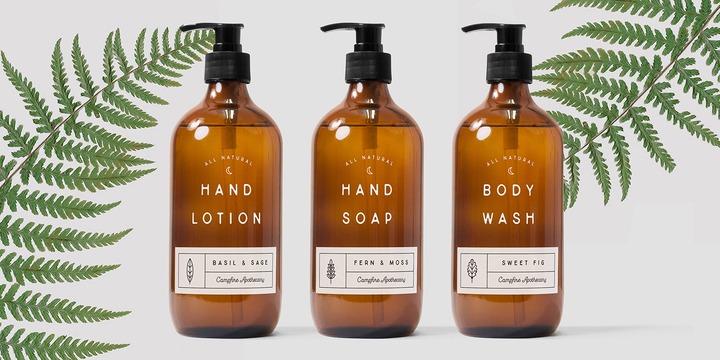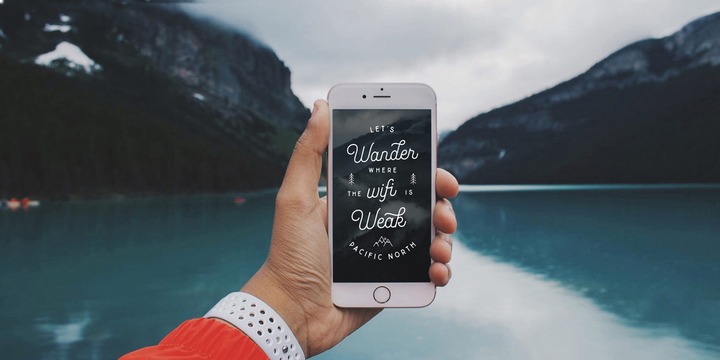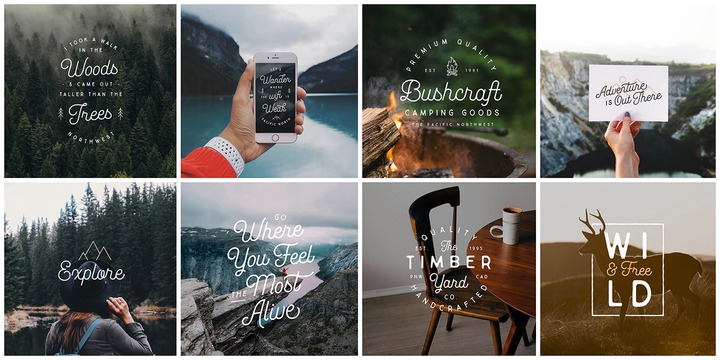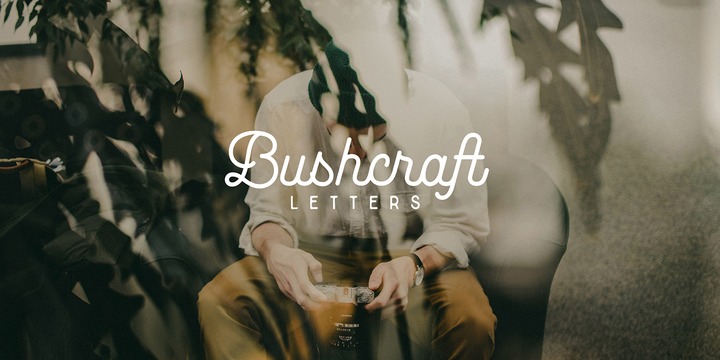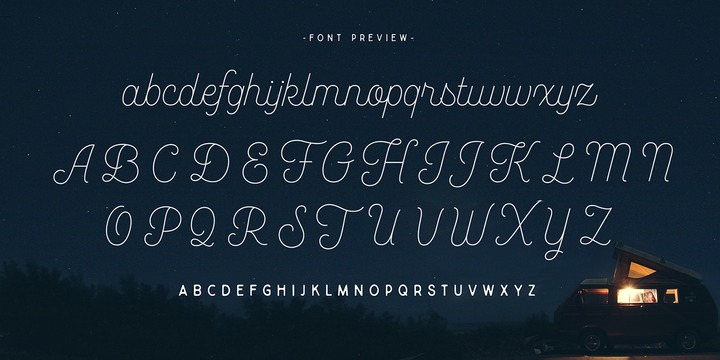
Bushcraft is a fun geometric monoline script and sans serif font. This family includes five weights, a sans serif font and art. Bushcraft Basic and Pro scripts are simplistic with a geometric look. Bushcraft Basic scripts comes with one set of 63 alternates and ligatures. Bushcraft Pro scripts includes 278 alternates and ligatures. Both versions supports extended Latin Pro and OpenType. Bushcraft Sans is an all caps, vintage inspired font that pairs nicely with the scripts and artwork.
More Bushcraft is well-suited for type art, murals, product design, books, film, television, branding, magazines, signage and other creative projects.